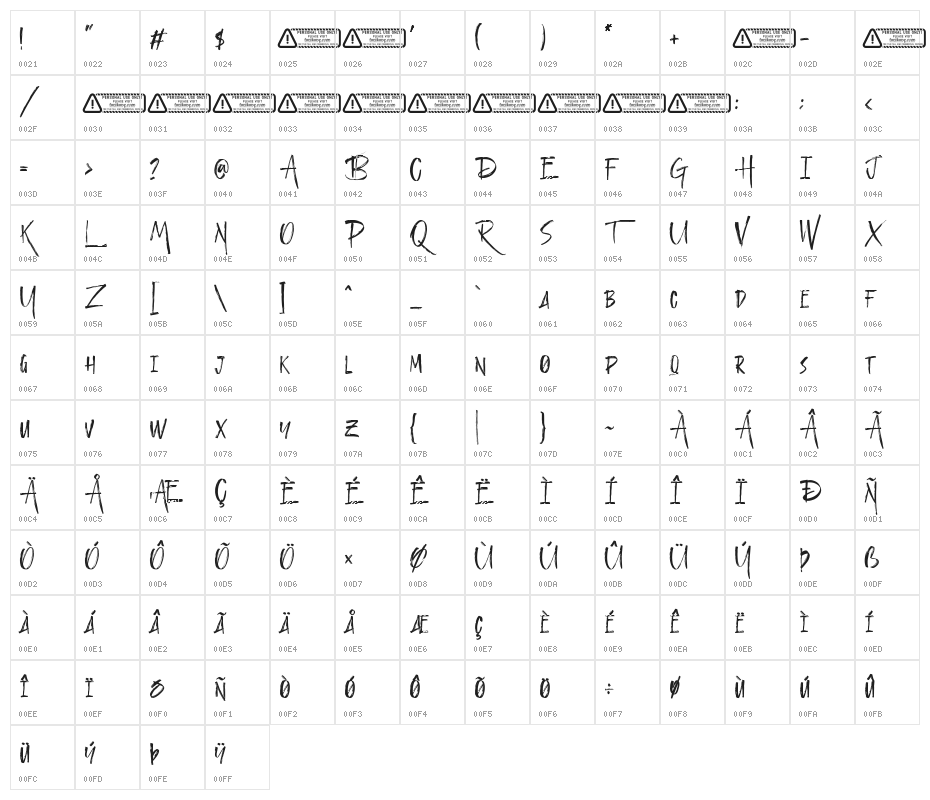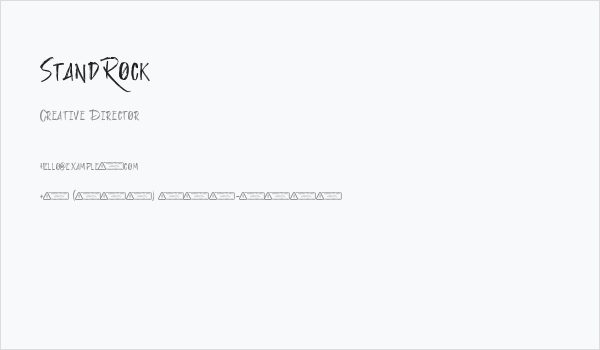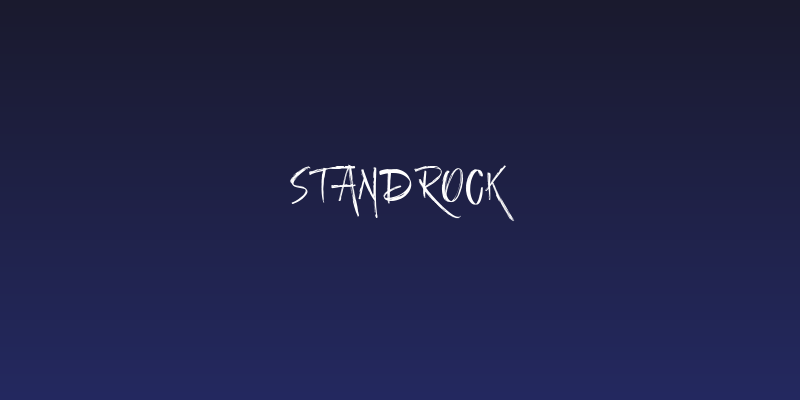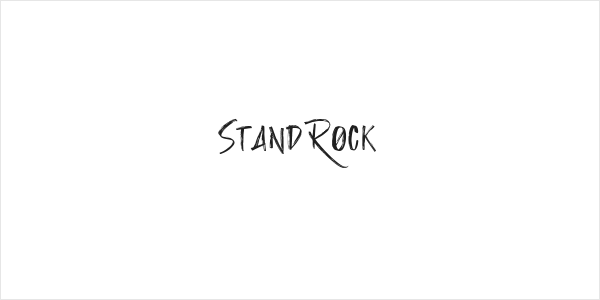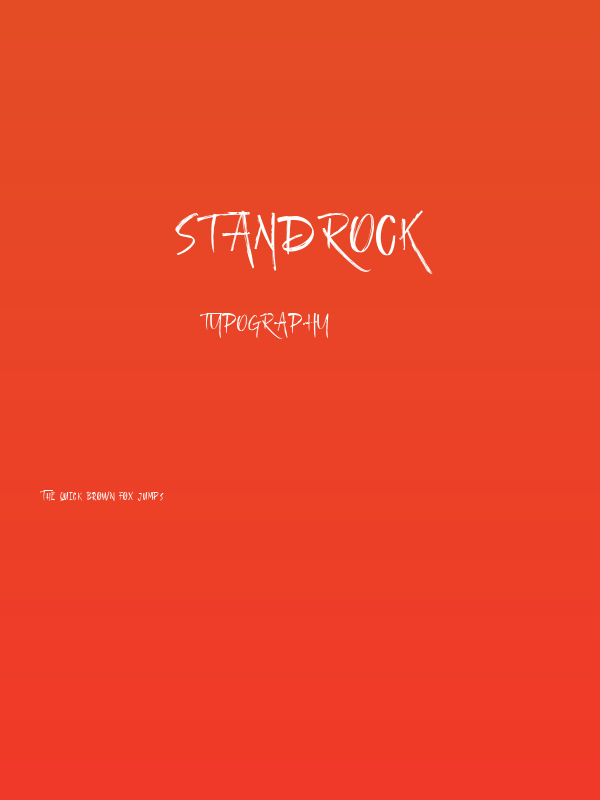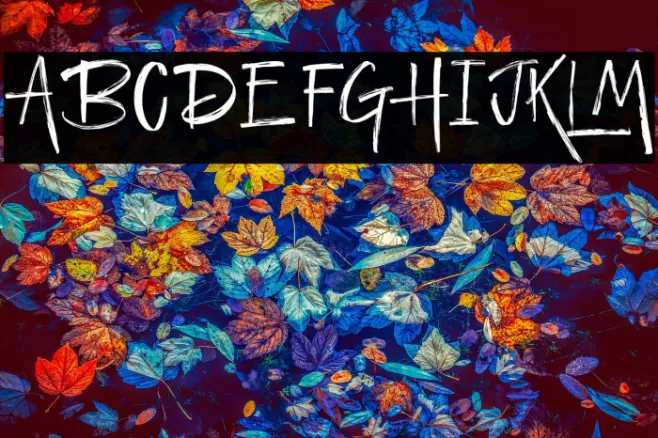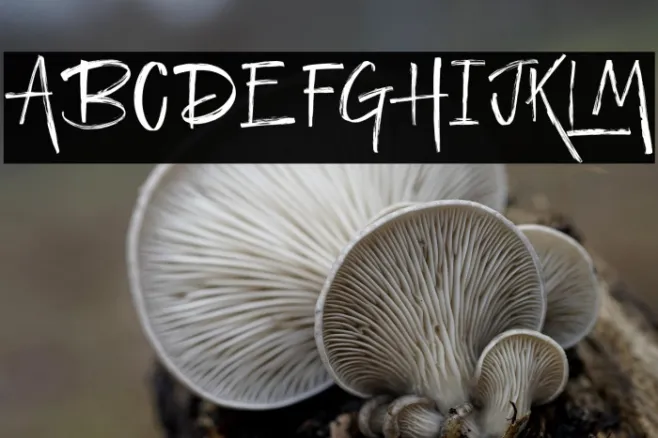
StandRock Font
StandRock Description
This font features a bold, expressive style with a hand-drawn appearance. The uppercase letters are characterized by their uneven strokes and dynamic angles, giving a sense of movement and energy. The lowercase letters maintain this energetic style, with a slightly more compact form. The numbers and special characters follow the same design principles, ensuring consistency throughout. The font's rough, textured edges add to its raw, artistic feel, making it ideal for projects that require a personal touch or a sense of spontaneity.